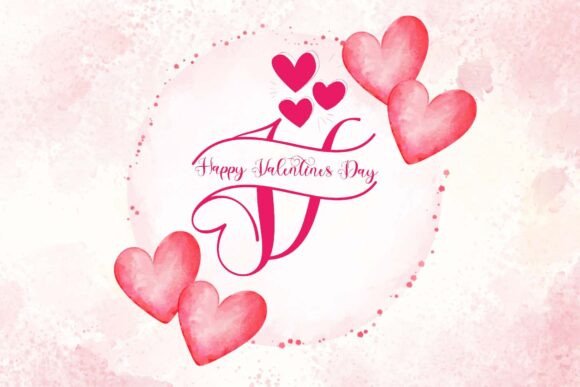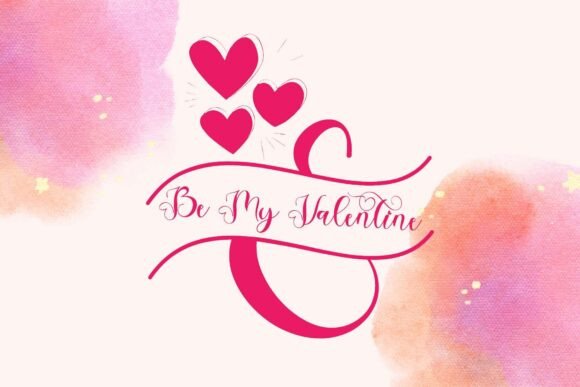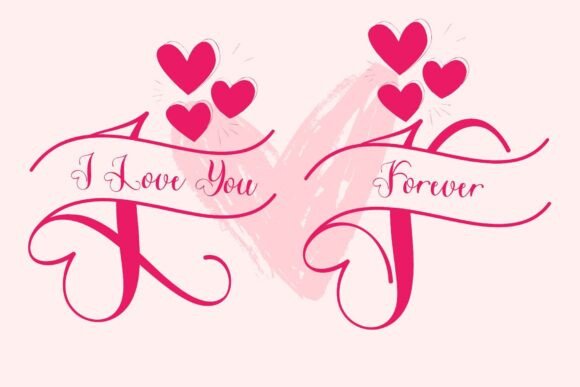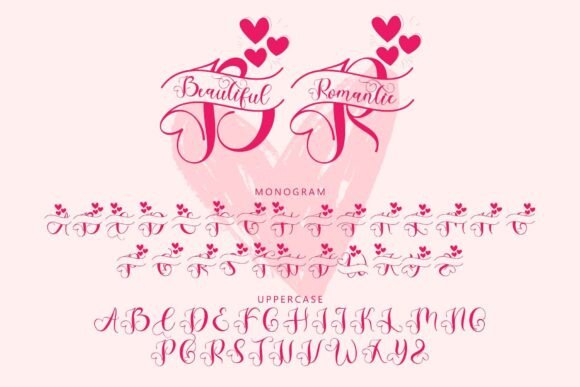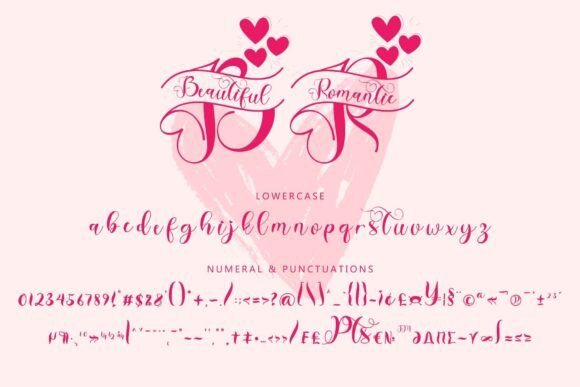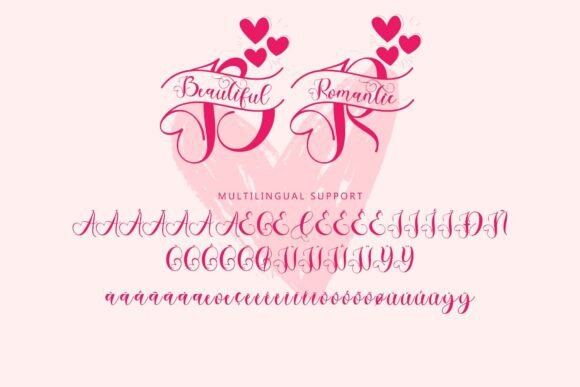
Love is in the Air: Introducing the Beautiful Romantic Monogram Font
Do you remember the moment you first saw the perfect wedding invitation or a beautiful monogram on a gift? For many of us, it’s a moment that sparks our imagination and sets the tone for a lifetime of love and commitment. As designers, we strive to create those same moments for our clients, and that’s where the Beautiful Romantic Monogram Font comes in – a beautiful monogram font that adds a touch of elegance and romance to any design.
This gorgeous font is perfect for wedding invitations, logos, and branding materials, and its multilingual support makes it a valuable tool for designers working with clients from diverse backgrounds. With its beautiful capital letters, lowercase letters, numbers, monograms, punctuation, and more, the Beautiful Romantic Monogram Font is a must-have for any designer looking to add a touch of romance and whimsy to their work.
Beautiful Romantic Monogram Font Key Features
- Unique Characteristics: The font features elegant, flowing curves and intricate details that evoke a sense of romance and sophistication. Its unique blend of traditional and modern elements makes it perfect for creating beautiful, one-of-a-kind designs.
- Monogram Capabilities: The font is specifically designed for creating beautiful monograms, with a range of customizable options for initials, lettering styles, and embellishments.
Designer Review: Beautiful Romantic Monogram Font
The Beautiful Romantic Monogram Font is a lovely, elegant choice for adding a touch of whimsy to your designs. ✨ I appreciate the intricate details and the soft, flowing lines that evoke a sense of romance and sophistication. The font is particularly well-suited for wedding invitations, anniversary cards, or any other occasion that calls for a touch of elegance.
One of the standout features of this font is its versatility. ✨ It can be used in a variety of settings, from formal events to more casual gatherings. The font is also highly customizable, allowing designers to adjust the size, color, and spacing to fit their unique vision.
While the Beautiful Romantic Monogram Font is a beautiful addition to any design, there are a few limitations to be aware of: ⚠️
- May not be suitable for bold or dramatic designs, as the font’s delicate nature may get lost.
- Can be difficult to read in small sizes or at a distance.
- May require additional design elements to create a cohesive look.
Overall, the Beautiful Romantic Monogram Font is a lovely choice for designers looking to add a touch of elegance and whimsy to their work. While it may have some limitations, its versatility and customizability make it a valuable addition to any design toolbox.